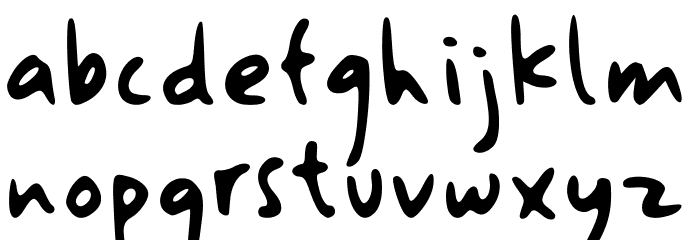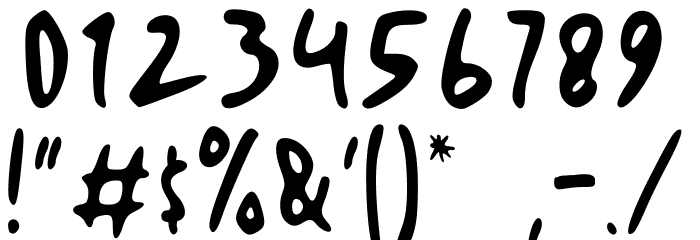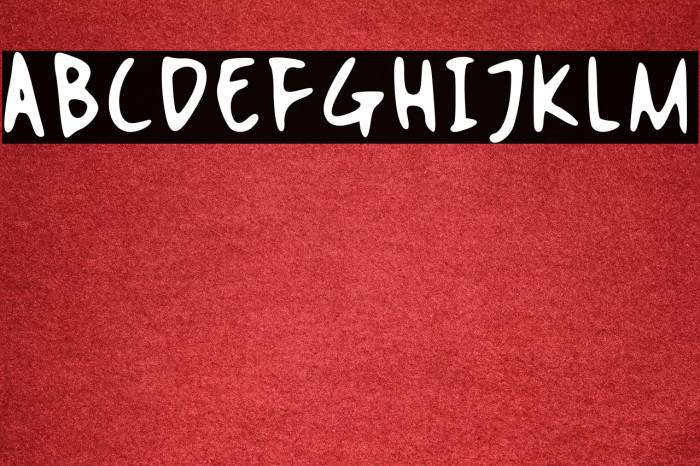
artomoro Font
This font features a playful and informal handwritten style, characterized by its uneven strokes and slightly irregular letterforms. The uppercase and lowercase letters exhibit a casual, free-flowing appearance, with a slight tilt and varying stroke thickness that adds to its charm. The numerals and special characters maintain this whimsical aesthetic, making the font suitable for creative and informal applications. Its organic and spontaneous look is reminiscent of hand-drawn lettering, offering a personal touch to any design. The font's unique style makes it stand out, providing a sense of individuality and creativity.
A playful, informal handwritten font with uneven strokes and a whimsical style.
- Proposed Projects: Ideal for greeting cards, children's books, playful branding, and creative social media graphics.
- Use Case: Headlines, Logos, Creative projects